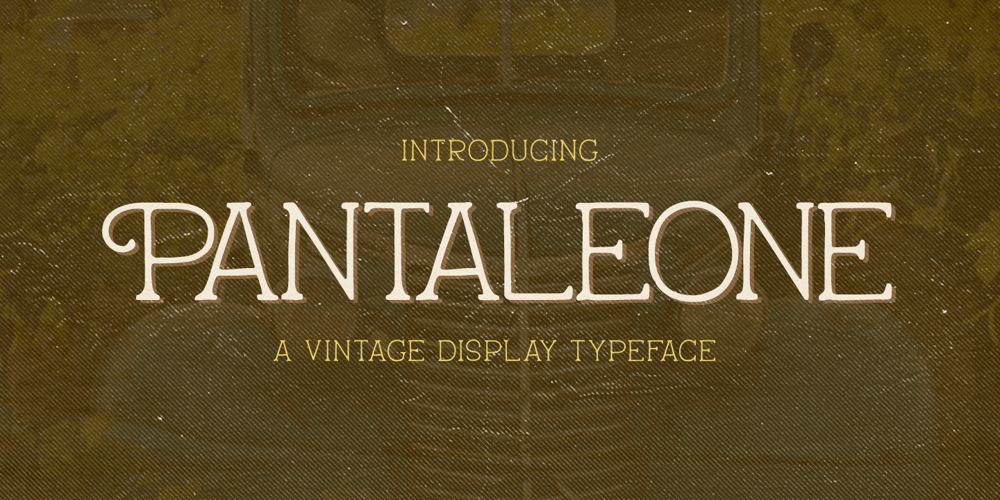
Pantaleone Font Family was designed by Gustian Agung Asprilla and published by Rillatype. Pantaleone contains 1 styles and family package options. Introducing, Pantaleone! our newest font that takes a vintage theme. Pantaleone makes your job of making vintage designs easier, this font is suitable for vintage design uses, especially for packaging, branding, quotes, etc. Caps only fonts.Features : Numbers and punctuation Multilingual PUA encoded Thank You!